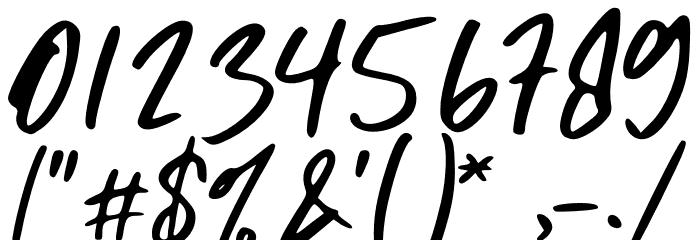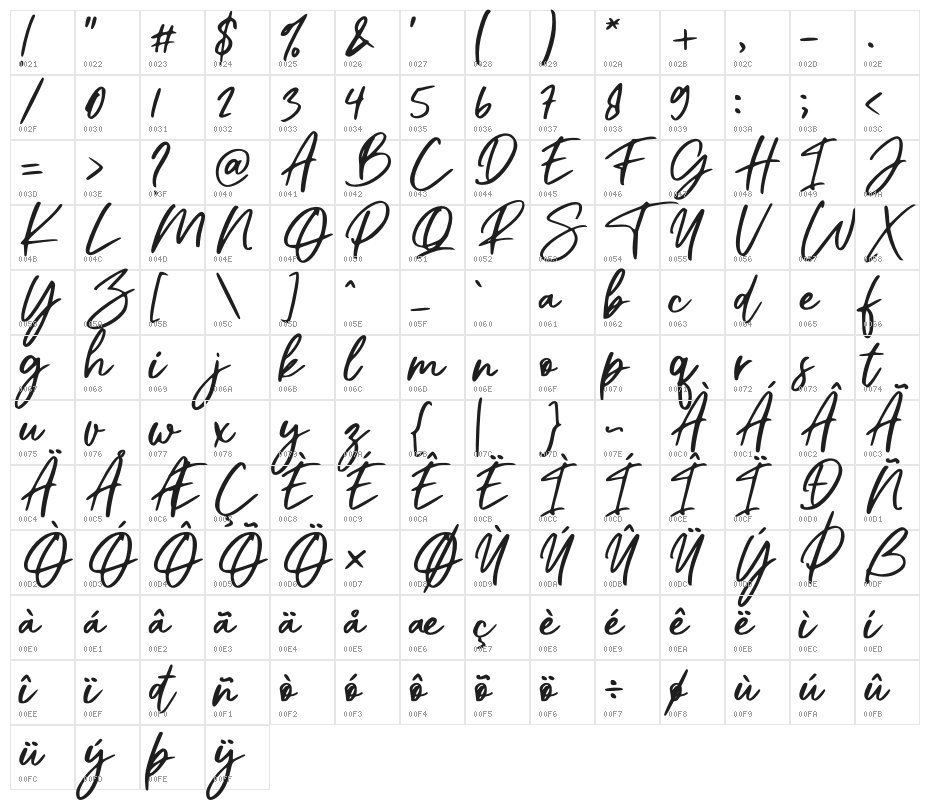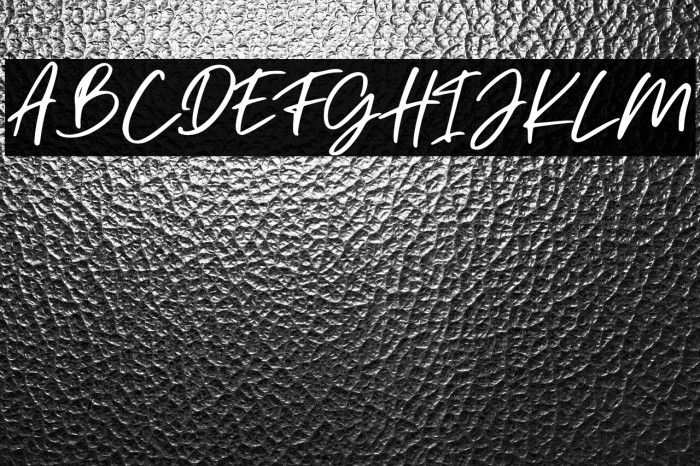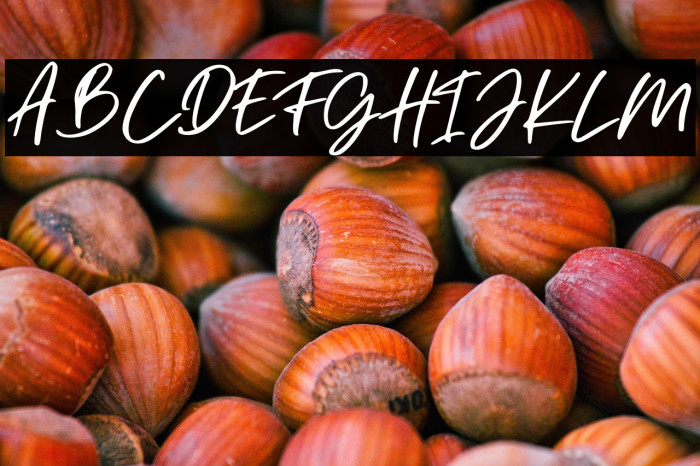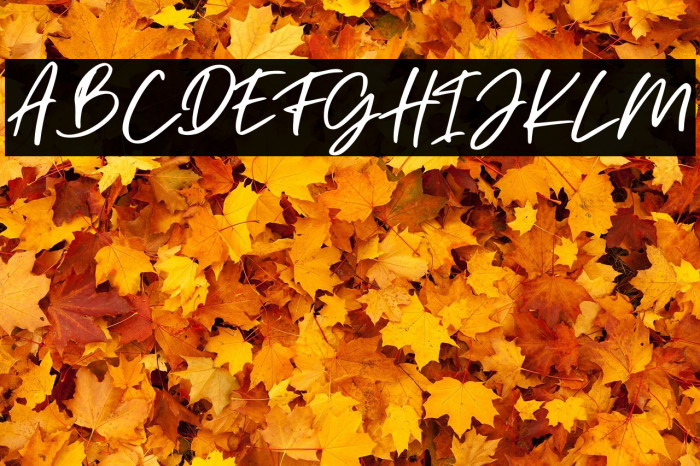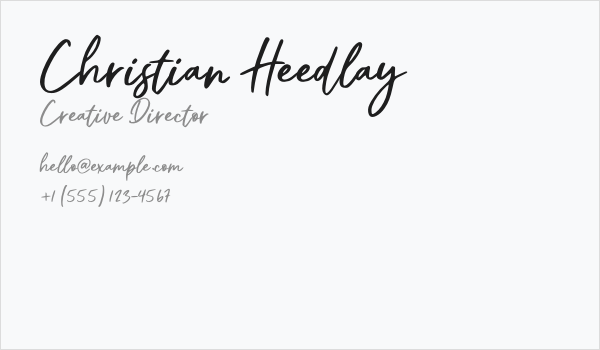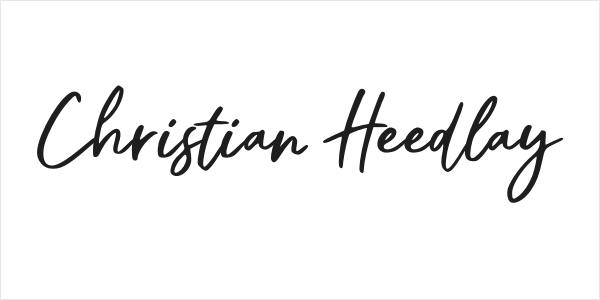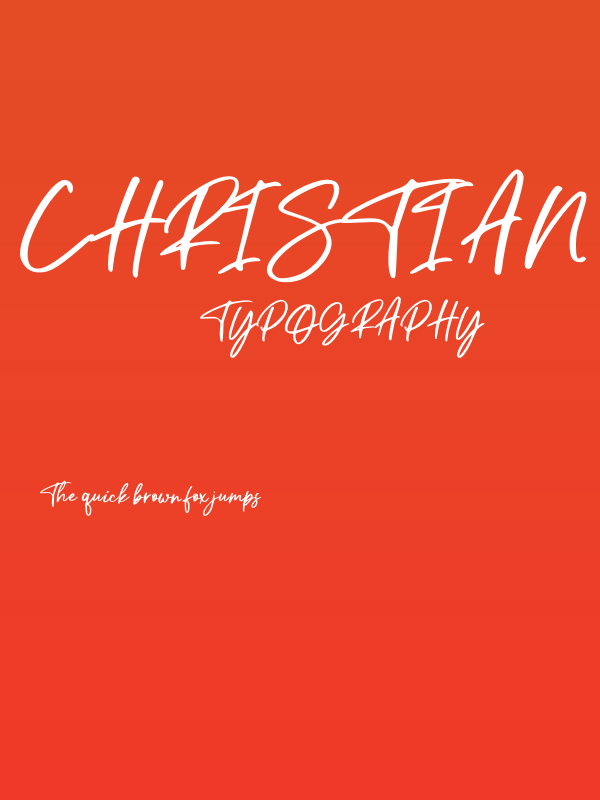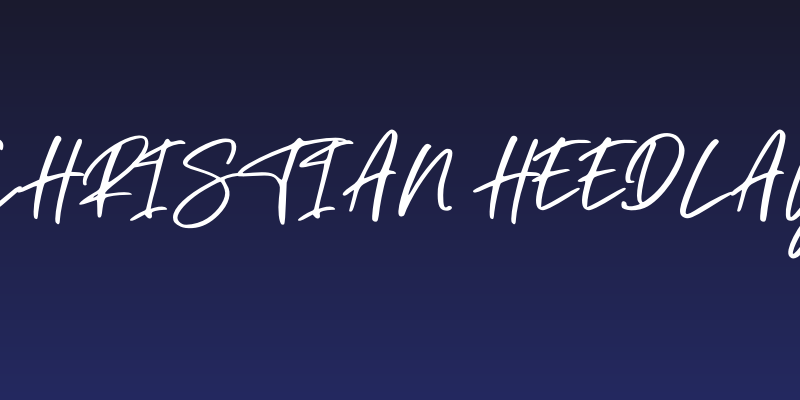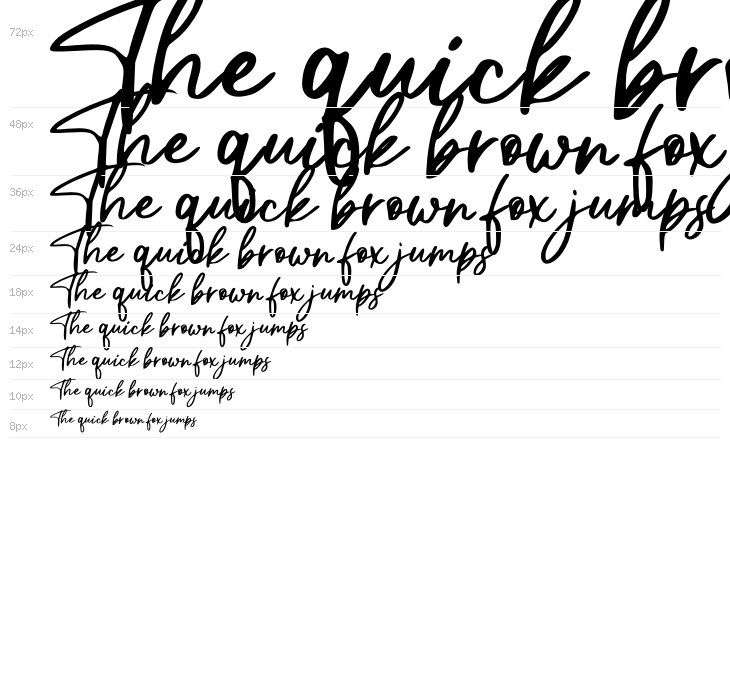
Christian Heedlay Font
Christian Heedlay Description
This font features a dynamic and flowing script style, characterized by its smooth, cursive strokes that mimic natural handwriting. The uppercase letters are elegantly connected, while the lowercase letters maintain a consistent rhythm and fluidity. The numerals and special characters are crafted with the same attention to detail, ensuring a cohesive look across all glyphs. The overall appearance is both sophisticated and approachable, making it suitable for a variety of creative projects.
| Use Case | Logos, Invitations, Social Media |
| Proposed Projects | Ideal for wedding invitations, branding, greeting cards, and social media graphics. |